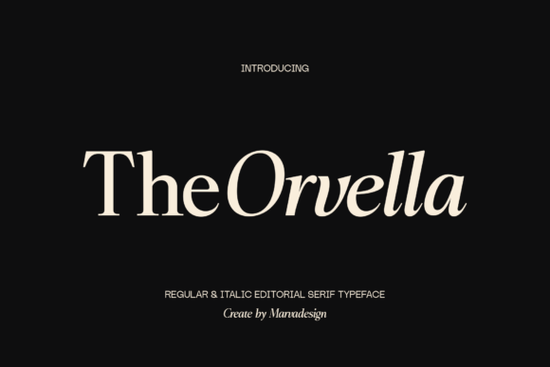
The Orvella Font is a high-contrast serif typeface built for editorial and branding work. It comes in both Regular and Italic styles, with sharp serifs, flowing curves, and a set of expressive ligatures that give text a polished, magazine-quality feel. If you've been searching for a typeface that bridges classic elegance and modern design, Orvella is worth a close look.
What Makes Orvella Different from Other Serif Fonts?
Plenty of serif fonts claim elegance, but Orvella earns it through careful design choices. The high-contrast strokes create a natural rhythm in body text and headlines alike. The ligatures those subtle letter pairings add visual flow without feeling decorative or distracting.
Compared to options like a soft serif with rounded edges, Orvella leans sharper and more structured. It's closer in spirit to typefaces you'd see in a high-end fashion editorial or a luxury brand's packaging.
Here's what sets it apart:
- Graceful, high-contrast strokes that stay readable at both large and small sizes
- Refined, sharp serifs instead of heavy or slab-style endings
- Custom ligatures that create smooth visual connections between letters
- Uppercase, lowercase, and multilingual support for global projects
Where Does Orvella Font Work Best?
This typeface was designed with specific use cases in mind. It performs especially well in projects where the typography itself needs to carry the brand's personality.
Editorial and magazine layouts are a natural fit. The Regular style brings clarity and authority to headlines and pull quotes, while the Italic adds movement and warmth to captions and sidebars. If you're working on a publication that needs a sophisticated look, Orvella delivers. Designers who also appreciate editorial serifs like a clean editorial typeface will find Orvella sits in a similar lane but with more expressive character.
Brand identity and packaging benefit from its refined personality. Think boutique logos, cosmetic packaging, wine labels, or jewelry branding. The typeface communicates quality without being loud about it.
Print-on-demand sellers can use Orvella for premium-looking designs on items like:
- Tote bags and apparel with elegant typography
- Greeting cards and wedding stationery
- Wall art quotes and motivational prints
- Business cards and product tags
For small businesses creating their own marketing materials, Orvella gives you a polished, professional look without hiring a typographer. It pairs especially well with minimalist layouts where the font does the heavy lifting.
If you're browsing serif fonts and trying to narrow down your choice, it helps to compare. Orvella sits in a refined middle ground more expressive than a playful modern serif, but less ornate than a bold decorative serif.
Designers drawn to classic luxury typography, similar to what you'd see in a fashion-inspired serif, will feel right at home with Orvella. Its ligatures and high-contrast strokes give it that editorial edge without going over the top.
The key difference is versatility. Some luxury fonts only work at large display sizes. Orvella holds up in longer text blocks too, making it a practical choice for projects that need both headlines and body copy.
- Pair it with a clean sans-serif for contrast, or use the Regular and Italic styles together
Tip: Start with your headline and body copy set in Orvella Regular, then switch captions or quotes to the Italic. This two-style system is the fastest way to create a cohesive, professional layout without adding extra fonts to your project.